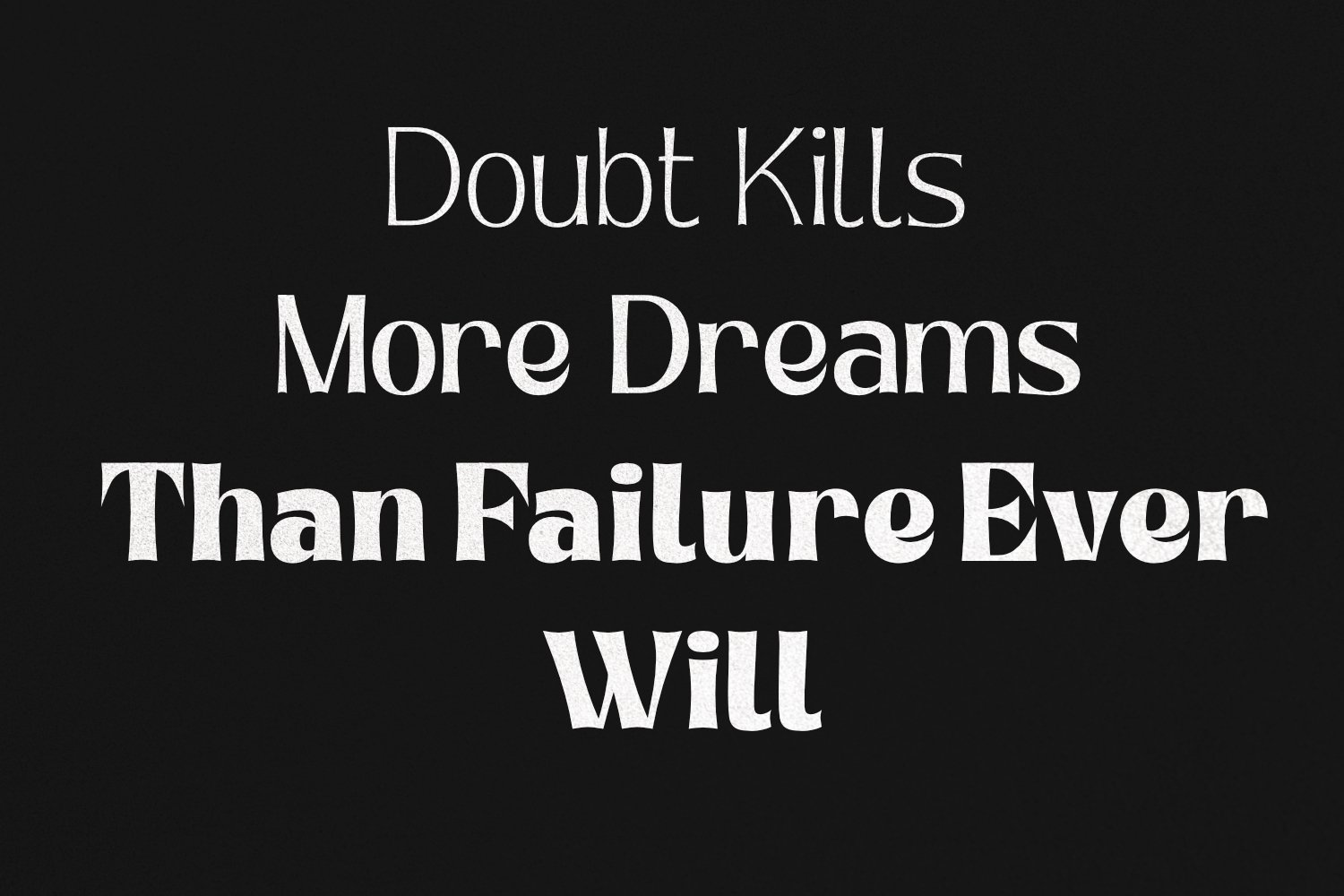
Mayes Variable Font
The most enduring luxury brands in the world share one typographic truth: they choose serif typefaces that communicate both heritage and modernity simultaneously. Mayes Variable Font was crafted precisely for this purpose — an elegant variable serif that brings centuries of typographic tradition into a fully contemporary, technically advanced package built for today’s most demanding design contexts.
Mayes distinguishes itself through its extraordinary refinement at every scale. The variable font architecture allows the letterforms to subtly adjust their optical characteristics as size changes — a feature that top-tier type designers call optical sizing — ensuring the font looks equally impeccable whether rendered at 8pt in fine print or 120pt on a luxury billboard. The serif details are drawn with museum-quality precision: bracketed serifs with carefully modulated curves, classical stroke contrast that references Renaissance type tradition, and proportions that feel both timeless and unmistakably contemporary.
Luxury editorial directors reach for Mayes when designing premium magazine layouts, high-fashion lookbooks, luxury hotel brand books, and prestige annual reports that must communicate financial and aesthetic excellence on every page. Premium packaging designers working with fine fragrance, haute couture, luxury spirits, and prestige cosmetic brands find Mayes delivers the typographic elegance that justifies premium price positioning. Brand book designers creating identity systems for heritage luxury brands appreciate the font’s ability to feel simultaneously rooted in tradition and relevant to contemporary luxury aesthetics.
Mayes performs with equal distinction in wedding stationery suites, luxury real estate marketing materials, upscale restaurant menus, fine art gallery communications, and any design context where the audience expects typographic excellence as a baseline standard.